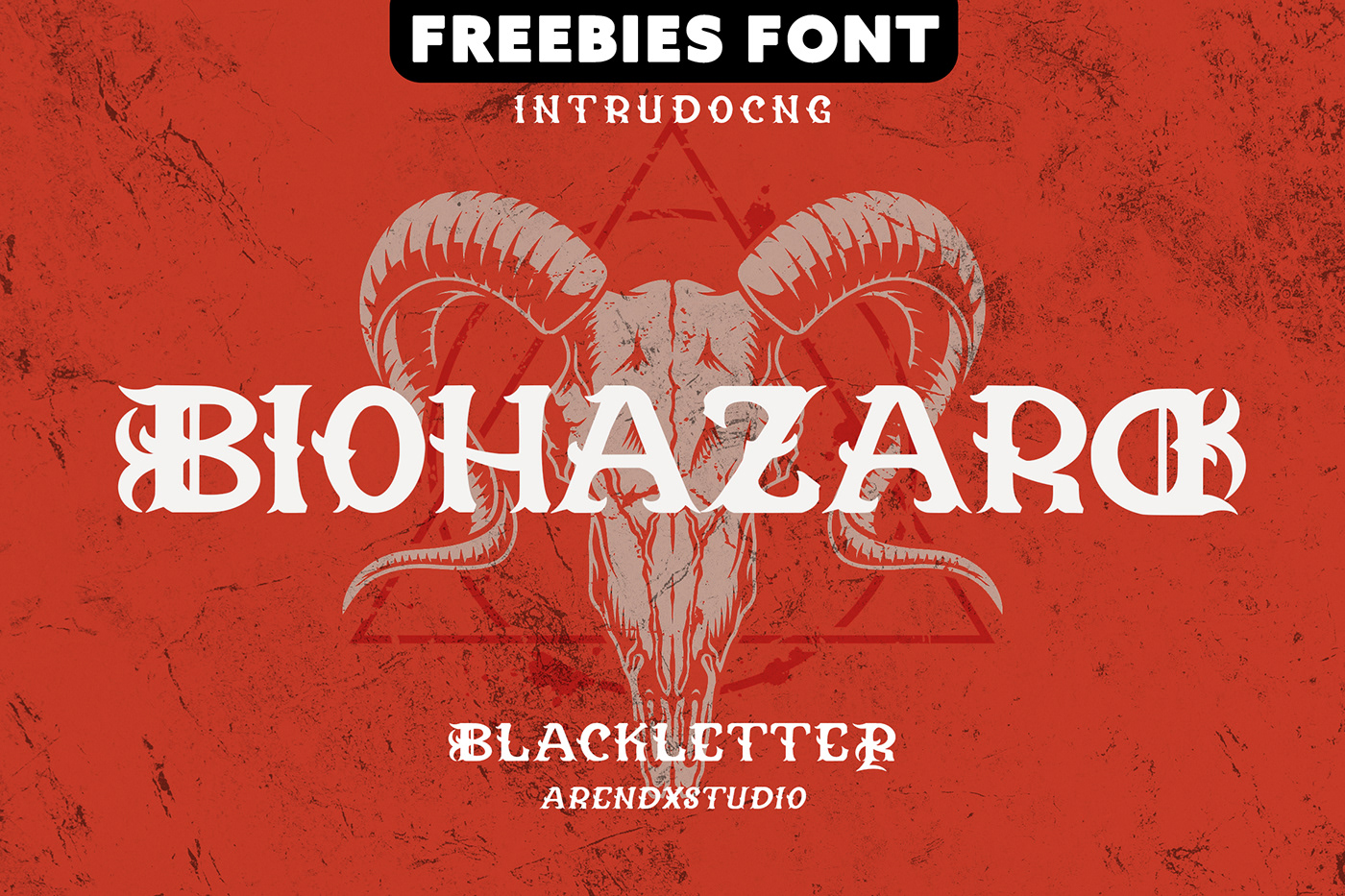
Biohazard - Free Blackletter Font
Biohazard is a gothic blackletter style display font by Arendx Studio. Its unique shape and style make it perfect for any project with a grungy theme.
Biohazard comes with OpenType features such as stylistic alternates, stylistic sets & ligatures which makes it great for logotypes, posters, badges, book covers, T-shirt designs, packaging and more.